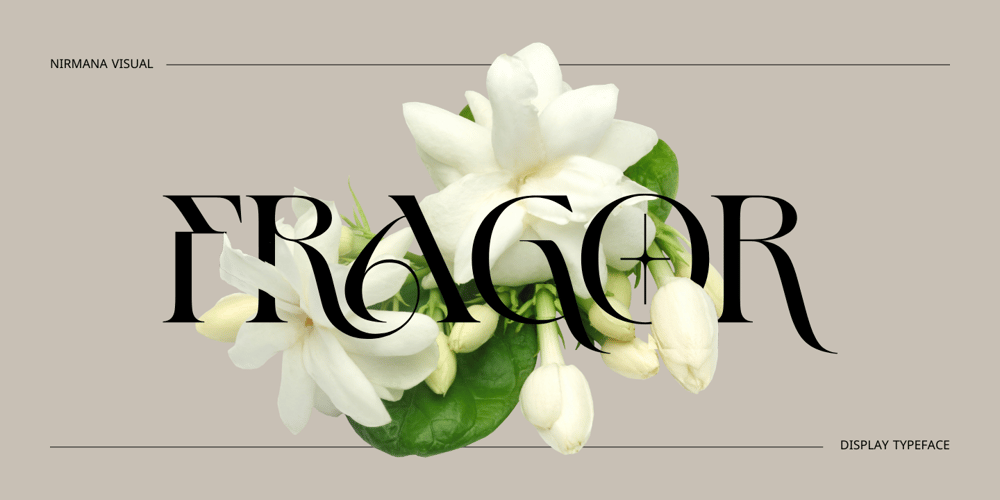
Fragor Font Family was designed by Sigit Dwipa and published by Nirmana Visual. Fragor contains 1 styles and family package options. Fragor, Serif Display Typeface.Fragor Inspired by Renaissance Era, Fragor Display Typeface offers beautiful typographic harmony for a diversity of design projects, including logos & branding, social media posts, advertisements & product designs.